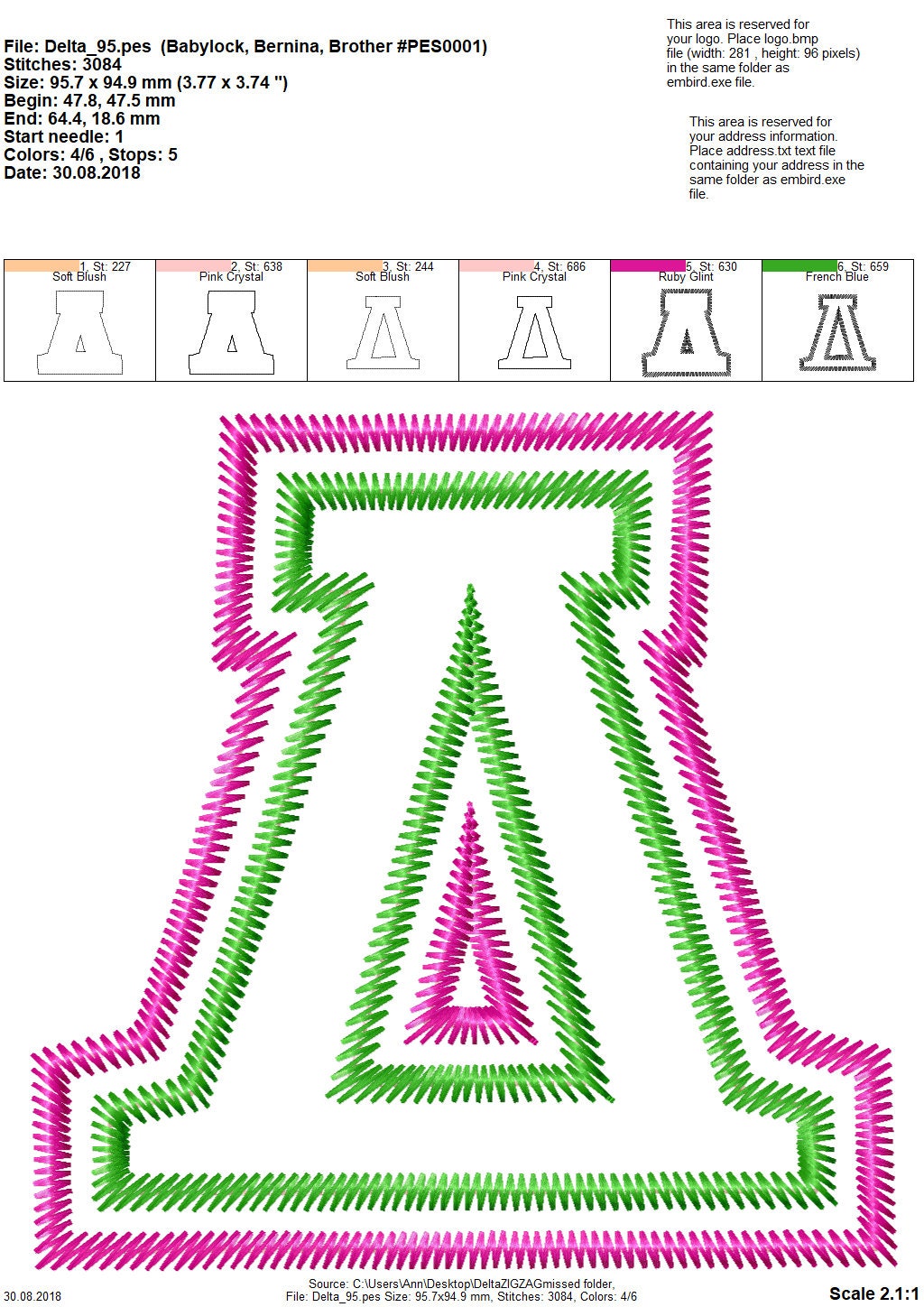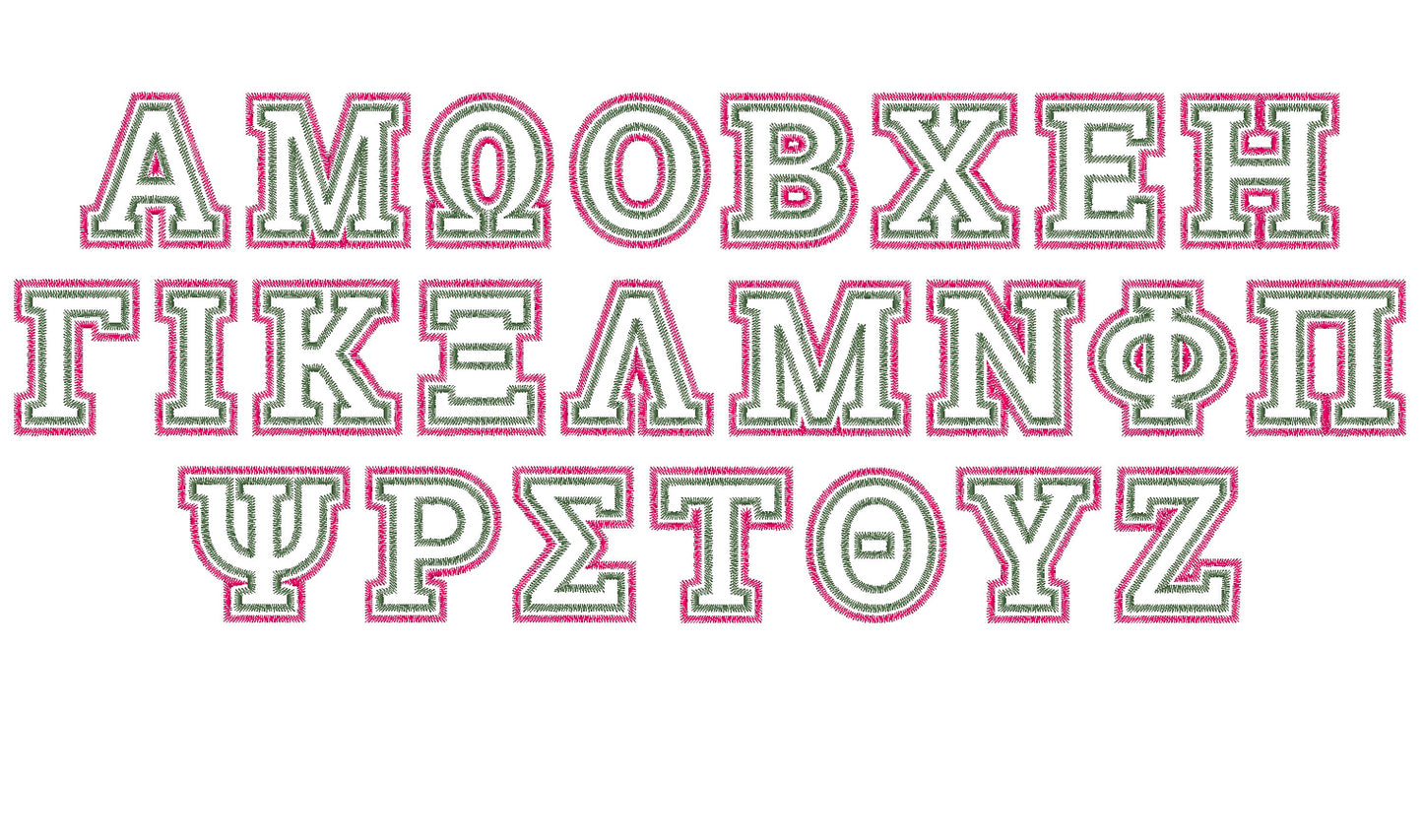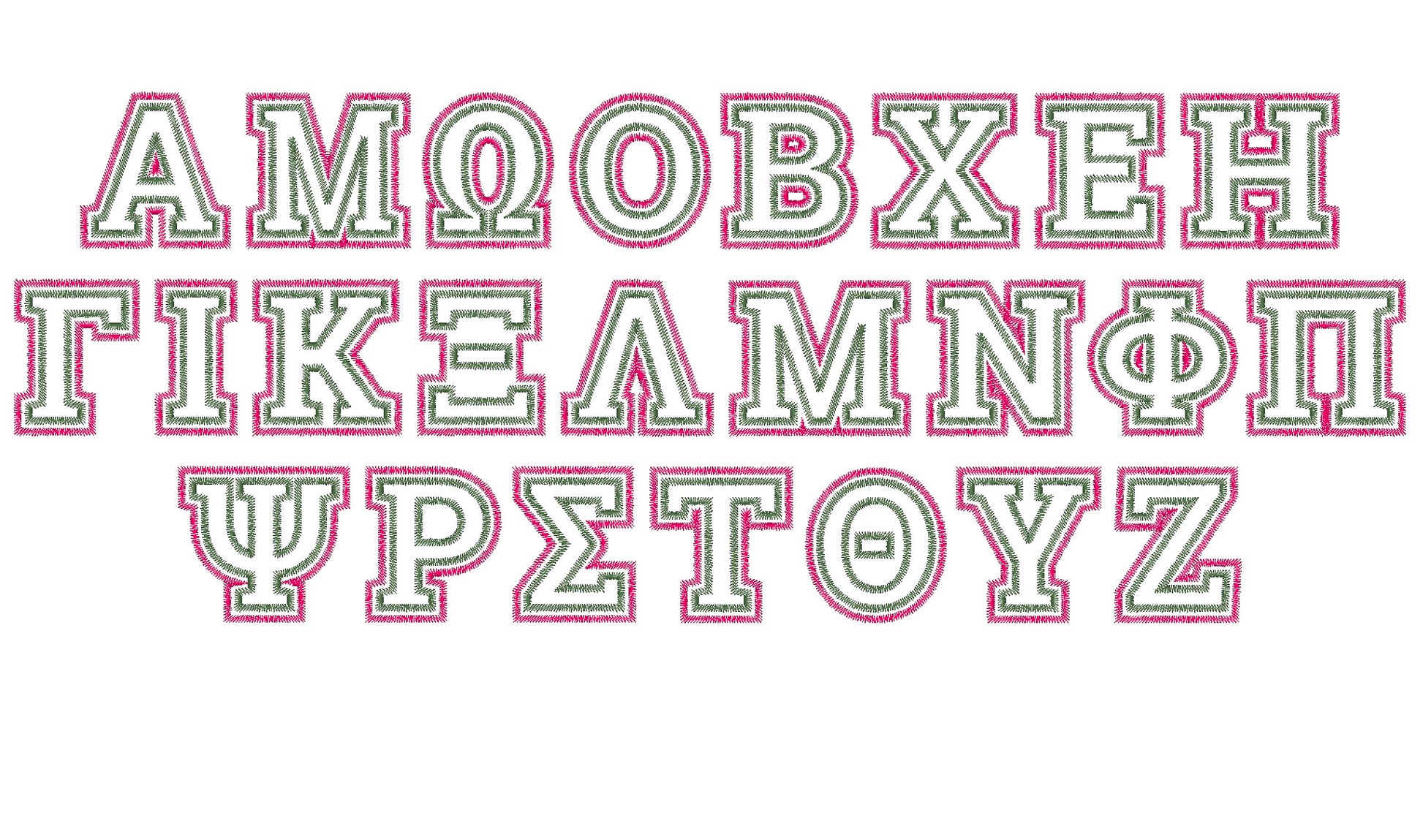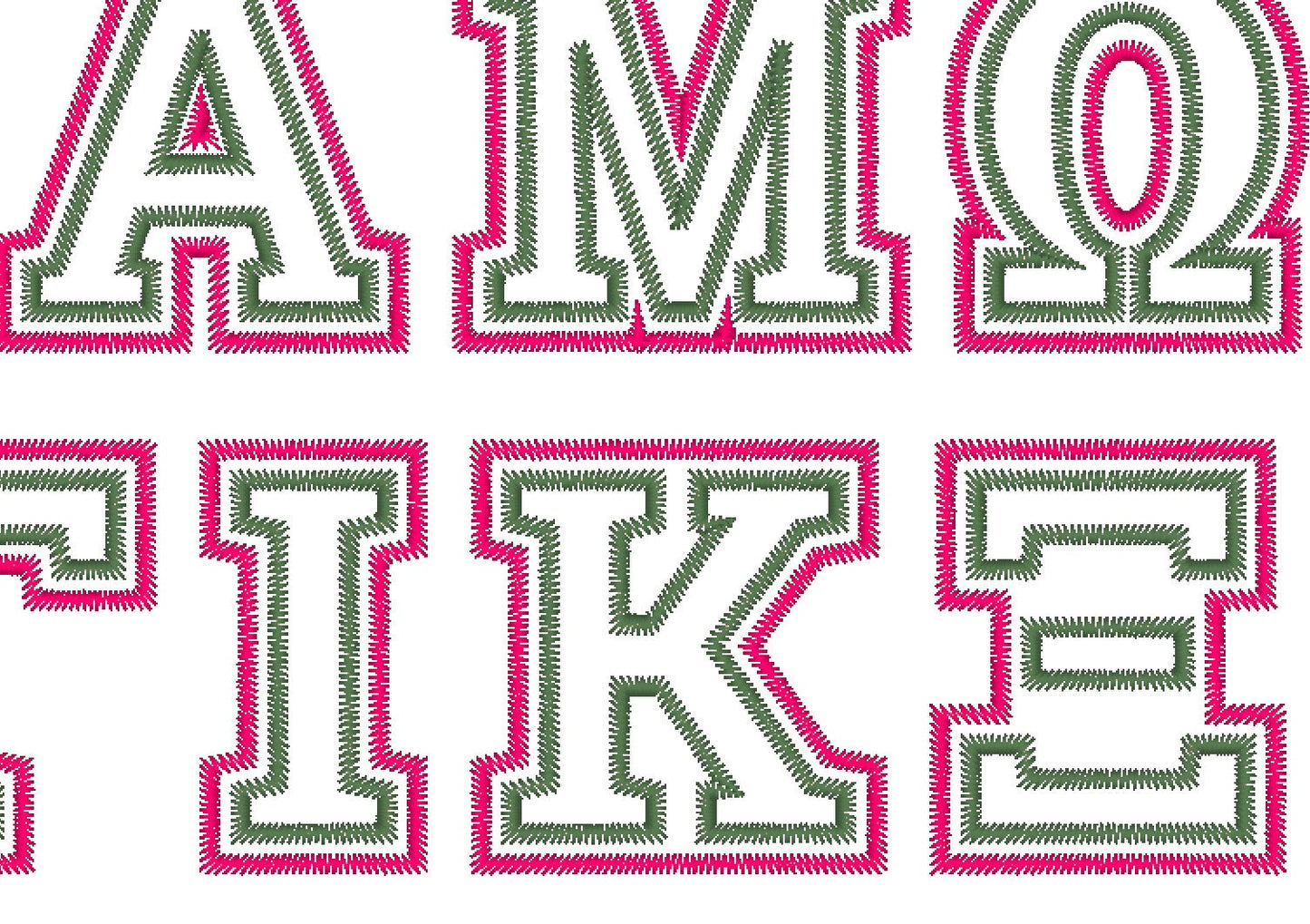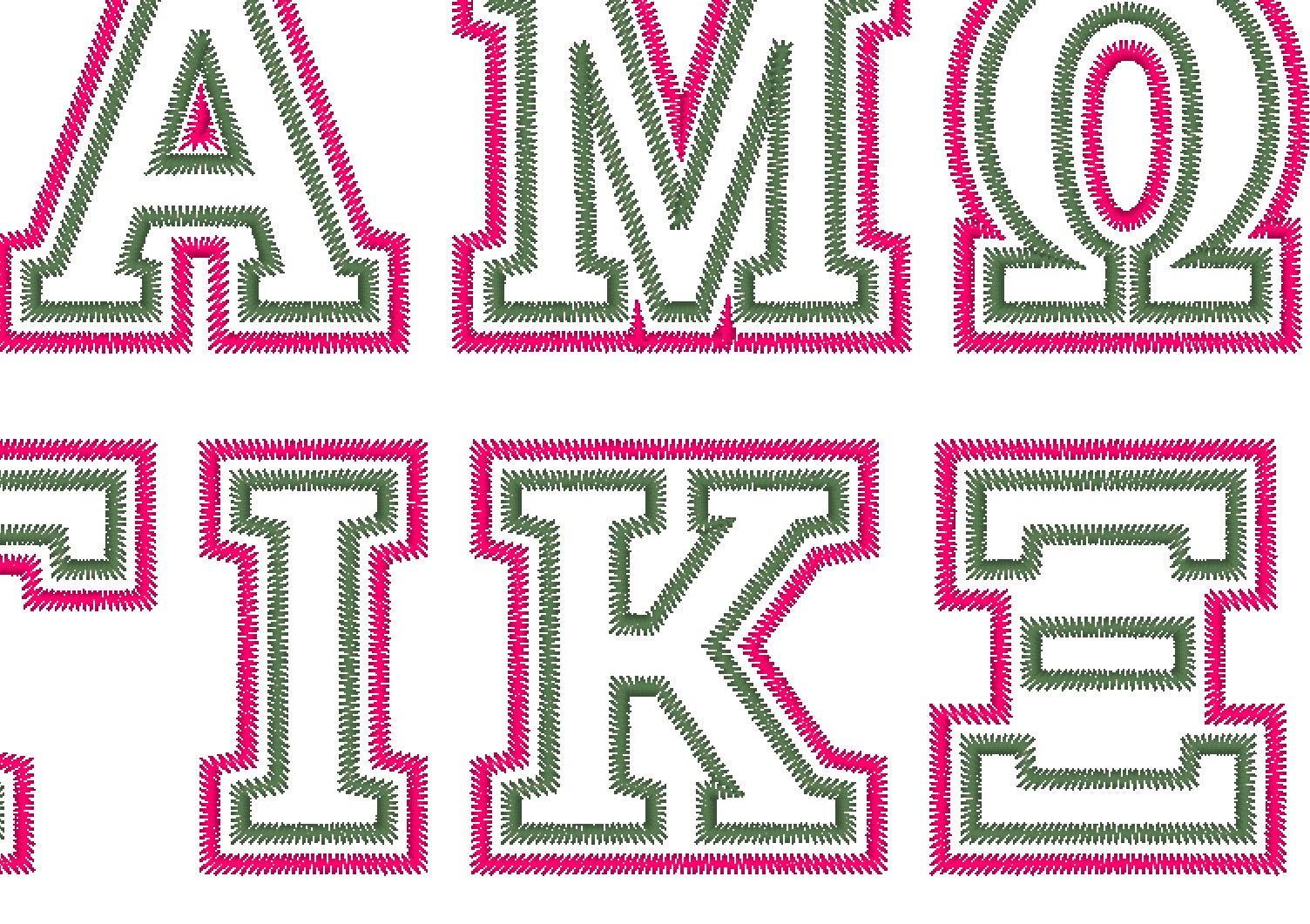
Or click to open the linkA Greek alphabet with two applique layers and a zigzag finish, for sorority and fraternity shirts, team jerseys and monograms.
The whole Greek alphabet in five sizes: 3, 3.5, 4, 4.5 and 5 inches. Each letter is a two-step applique in two colors with a zigzag edge.